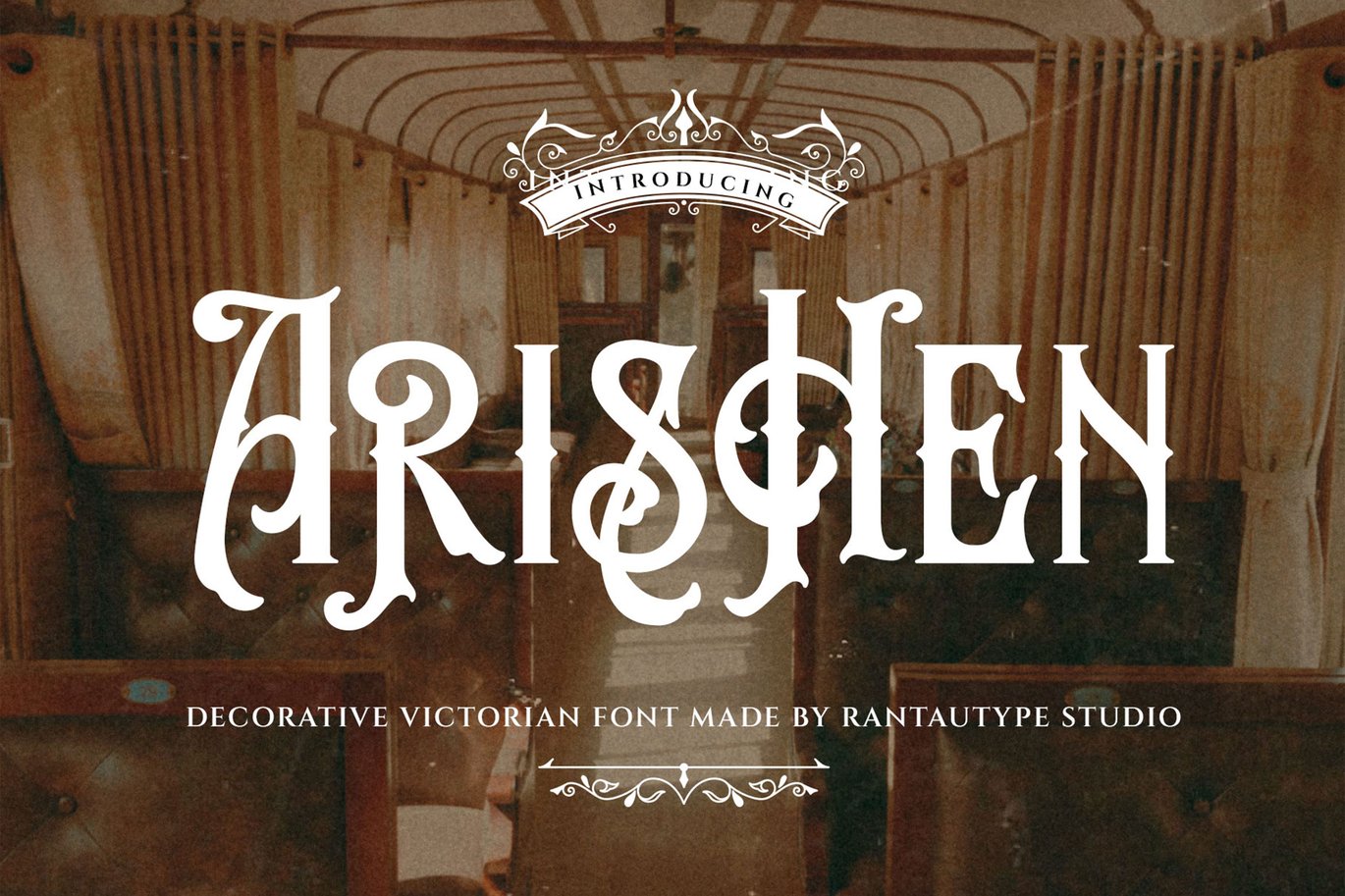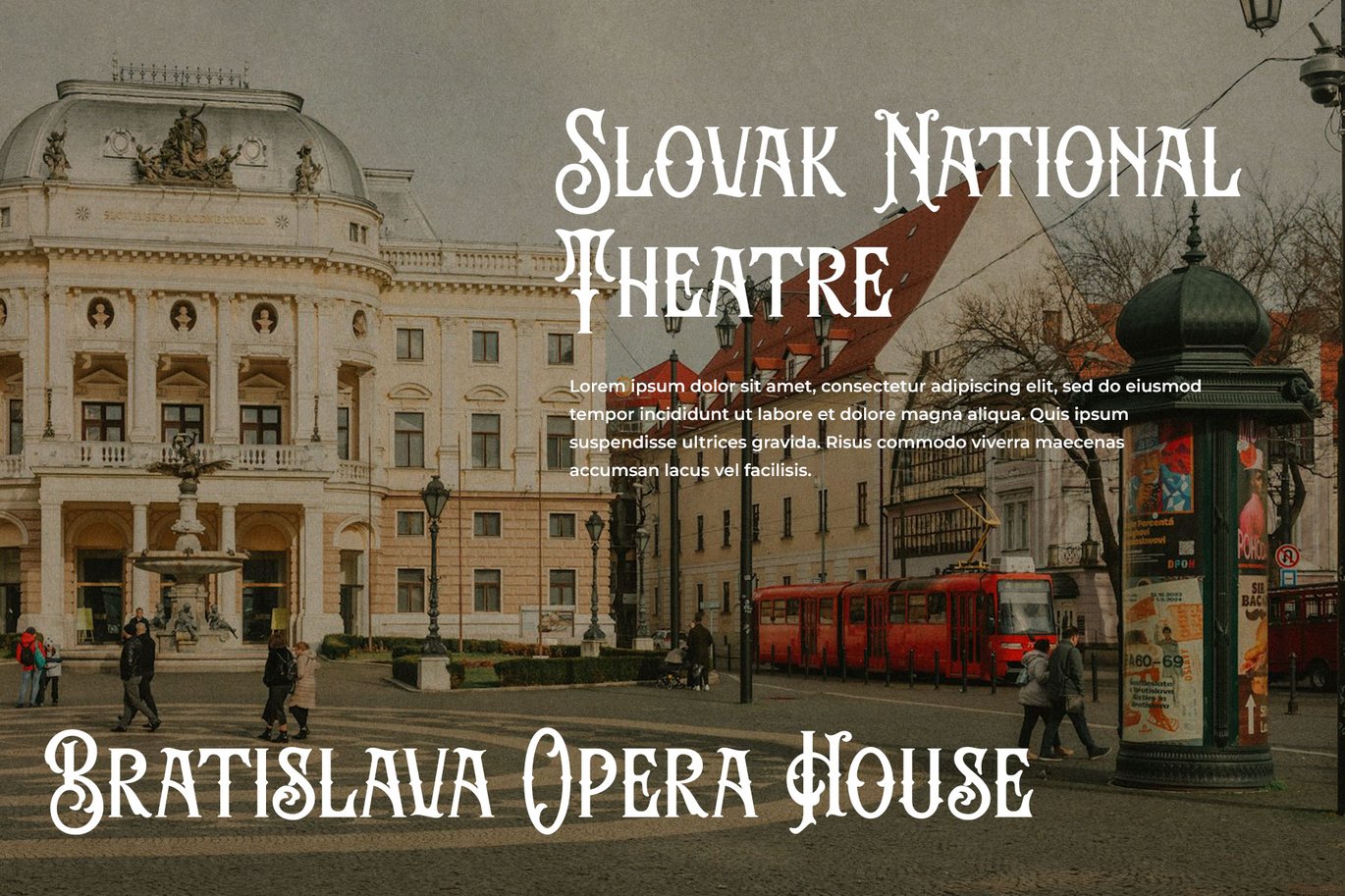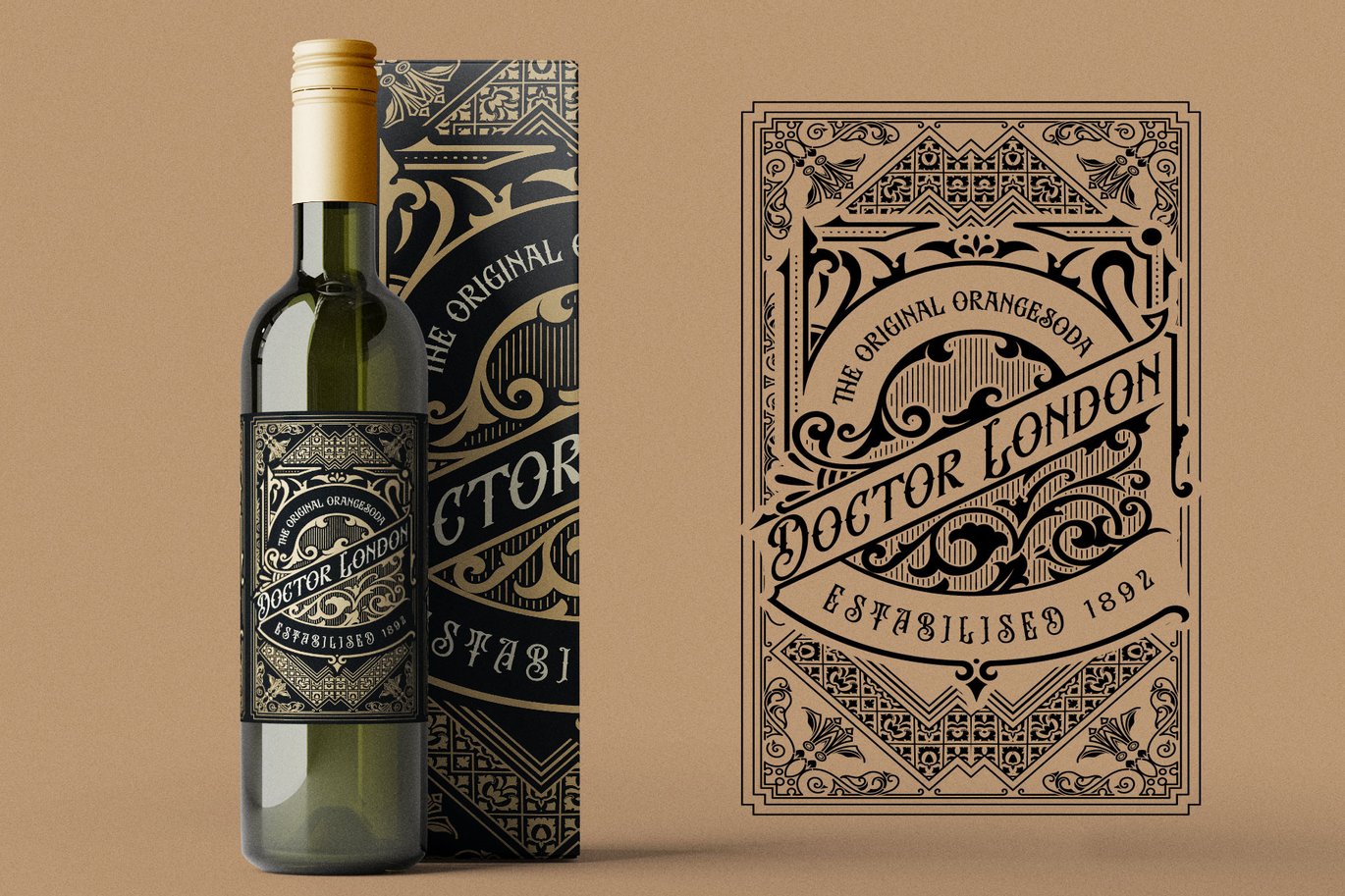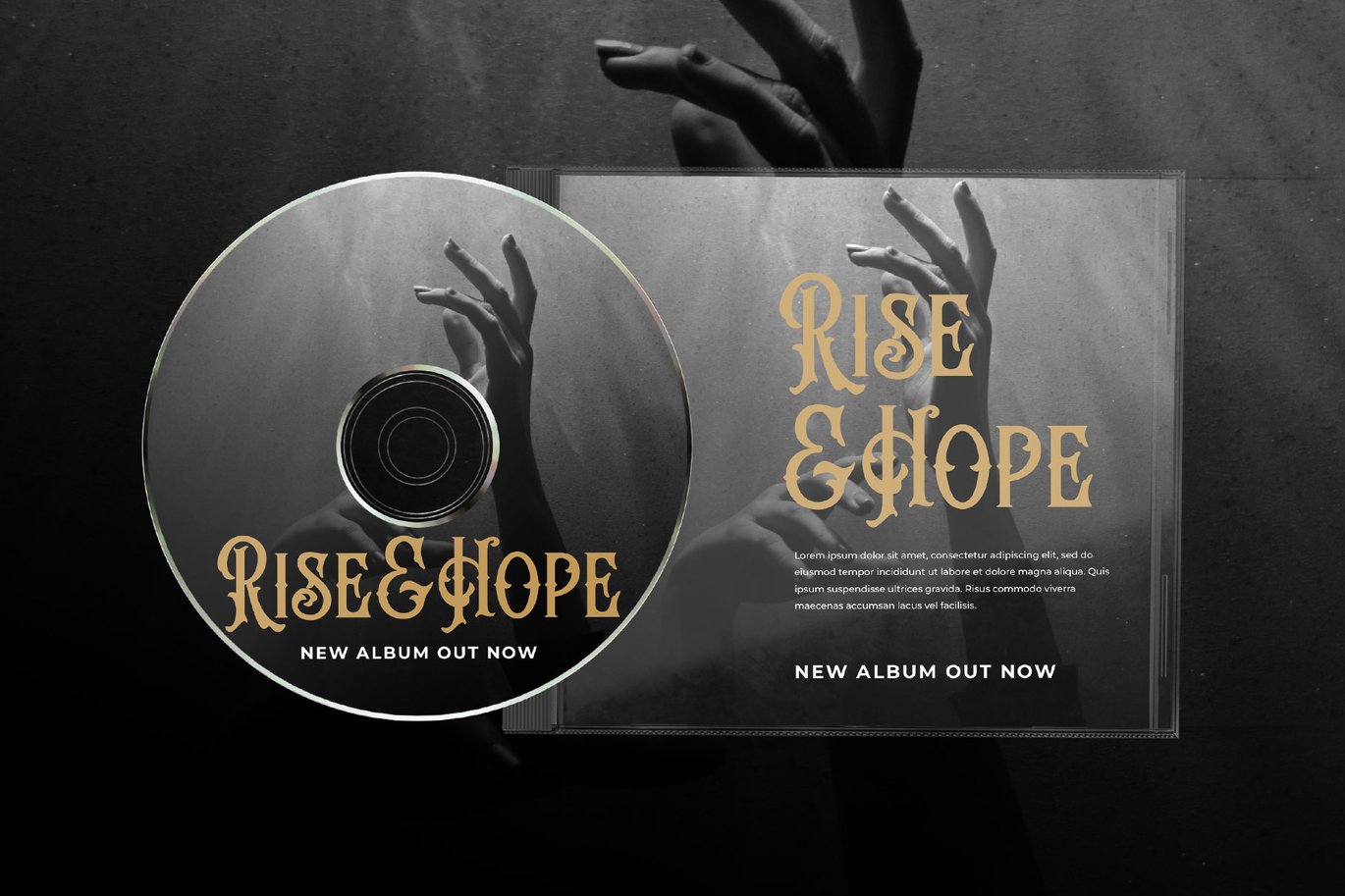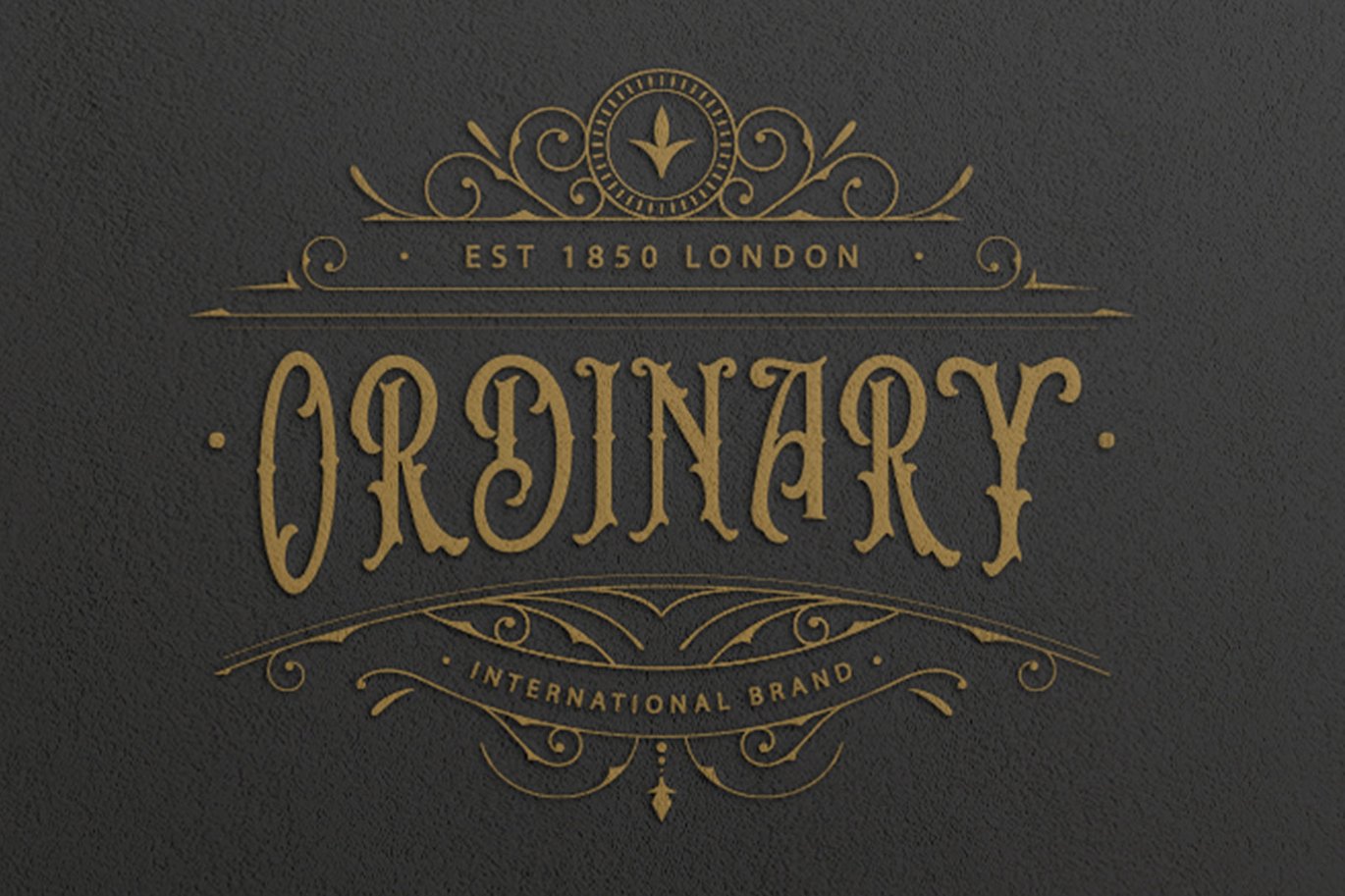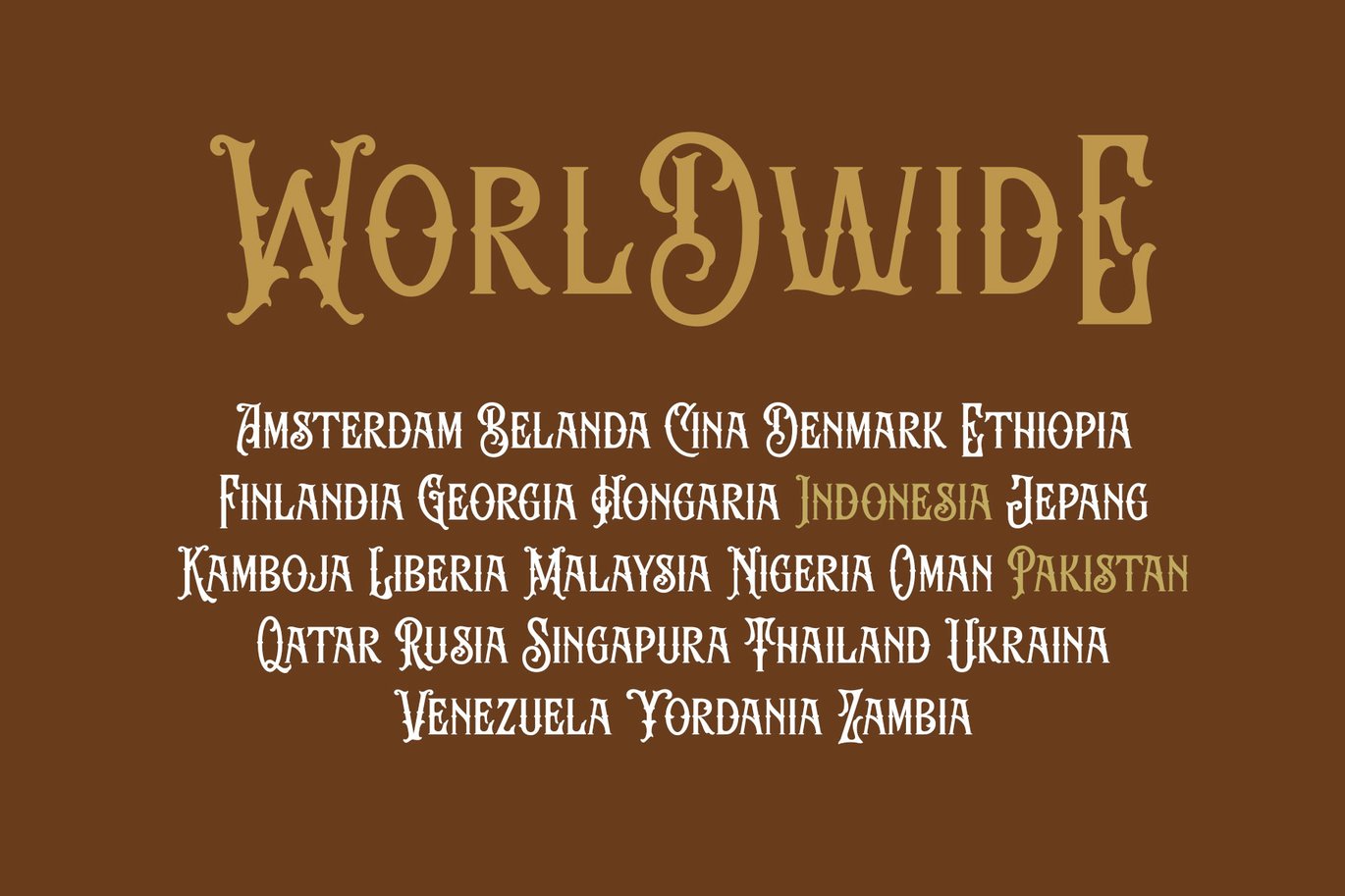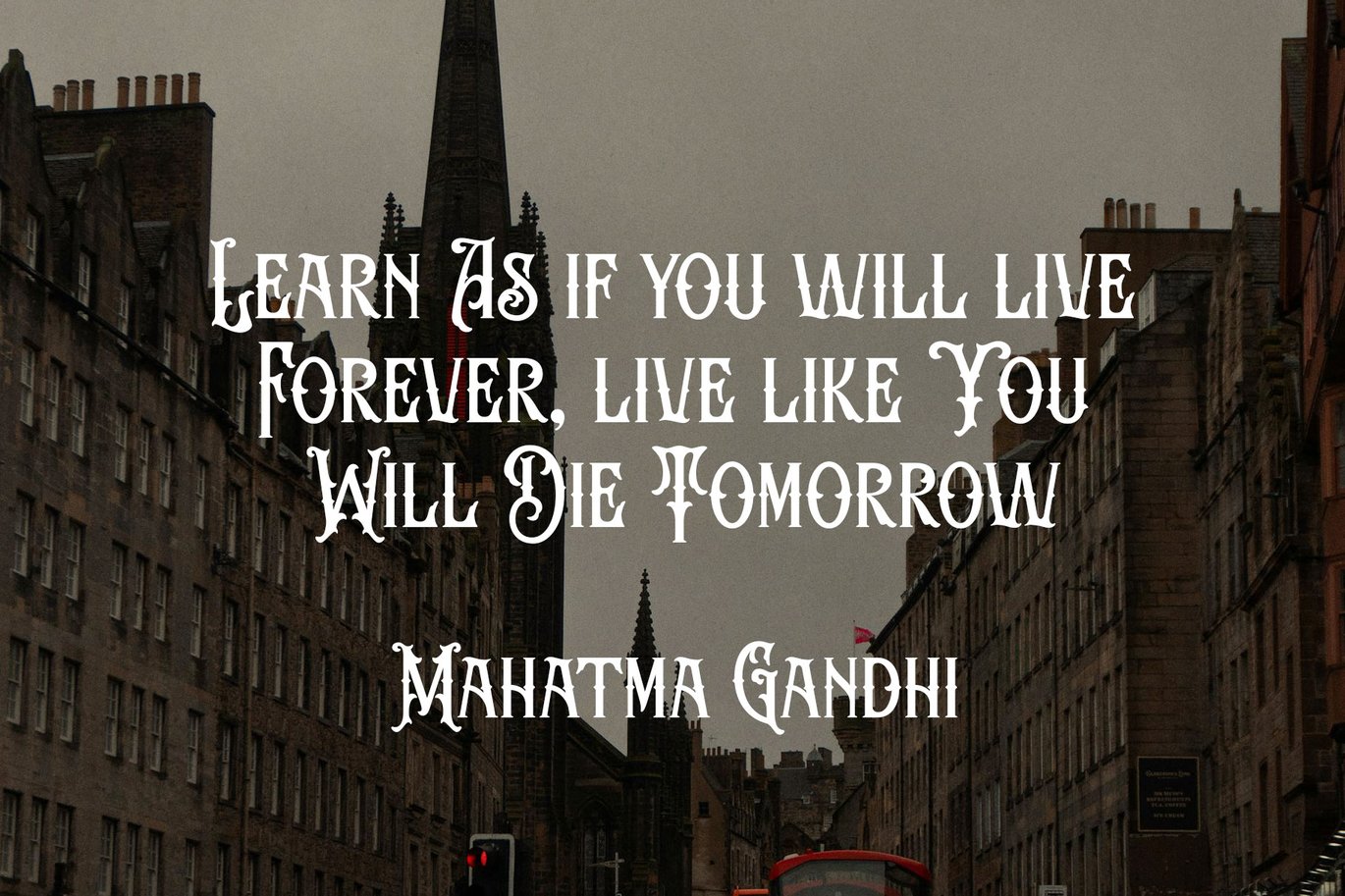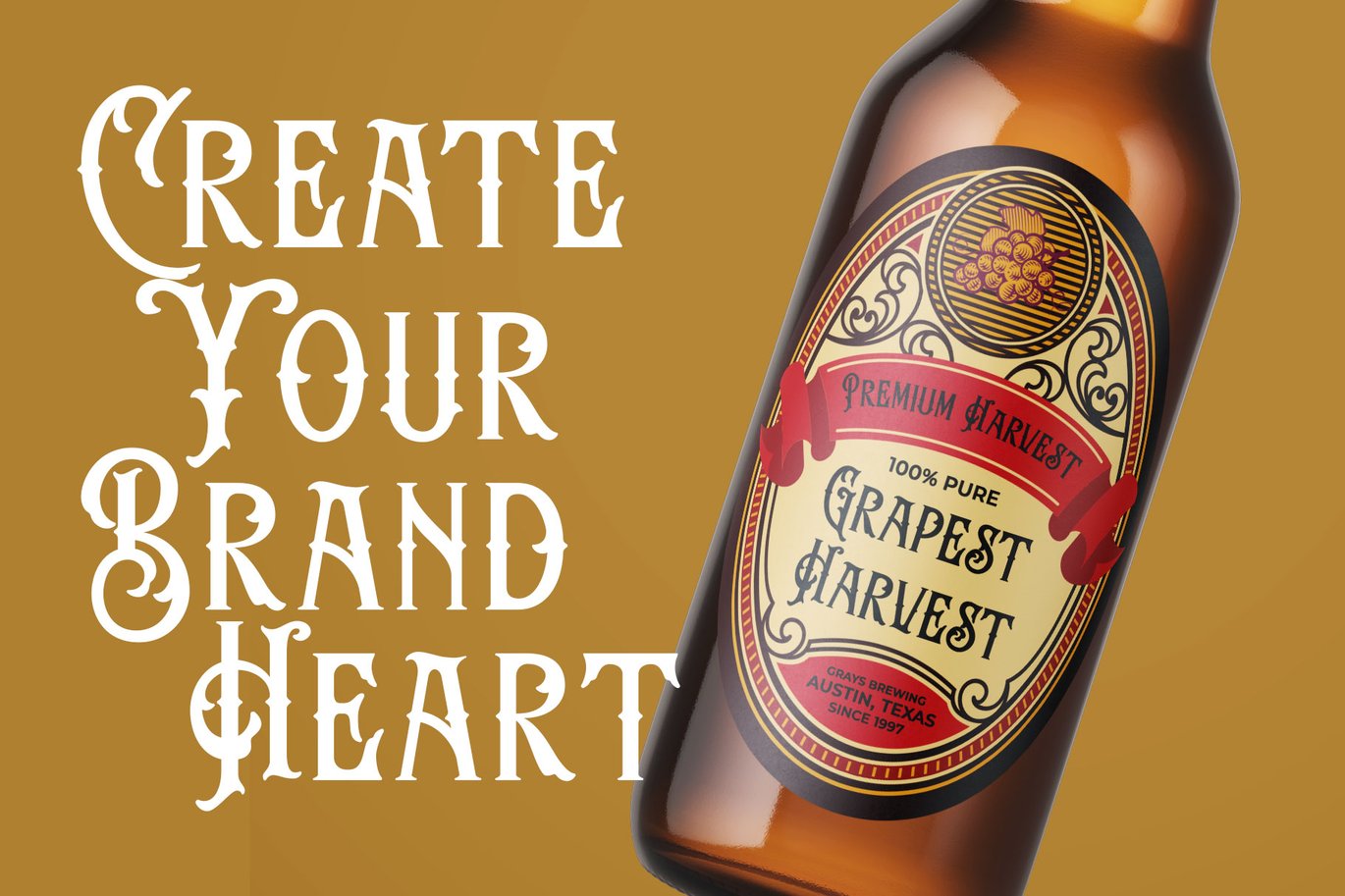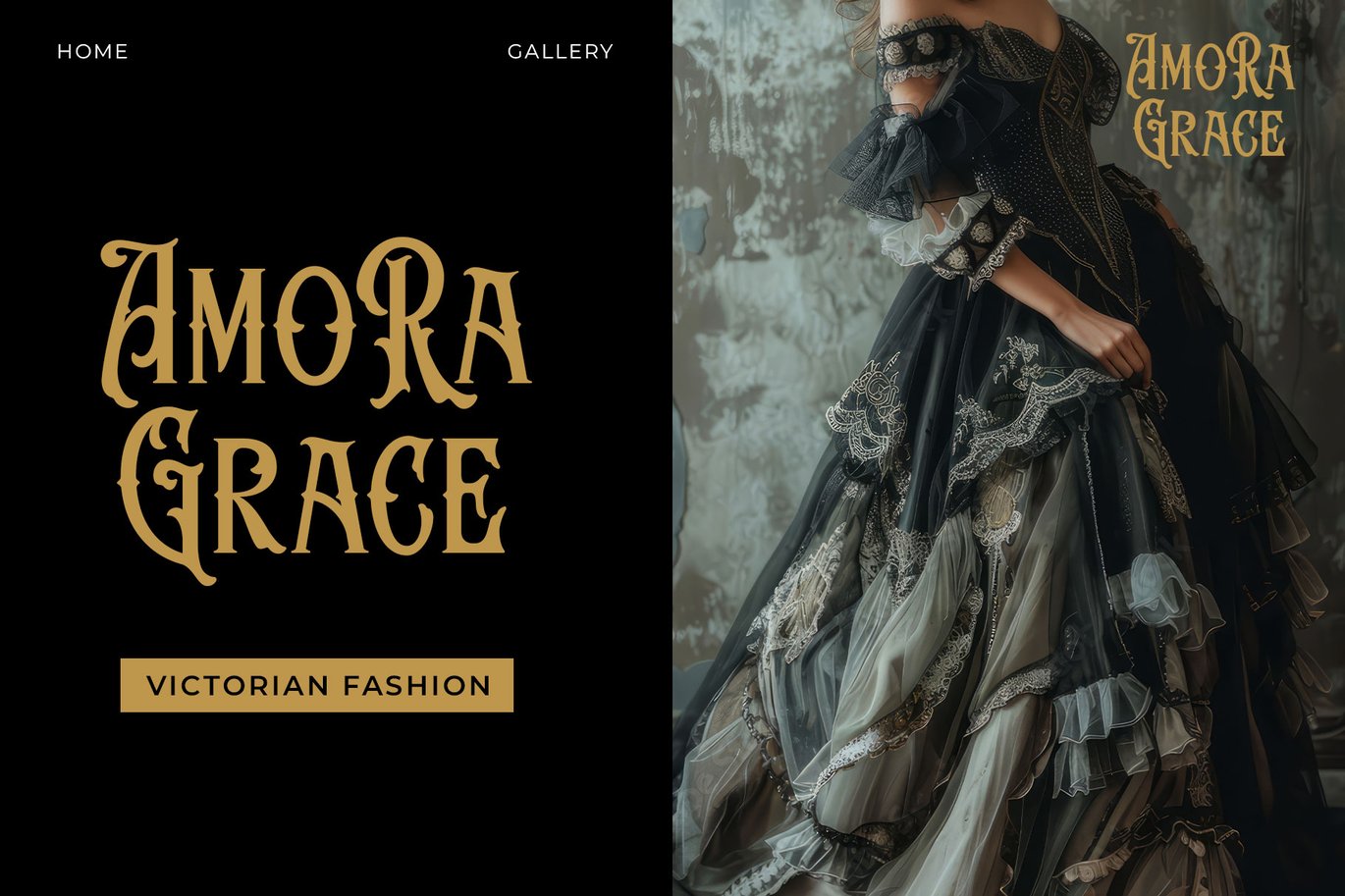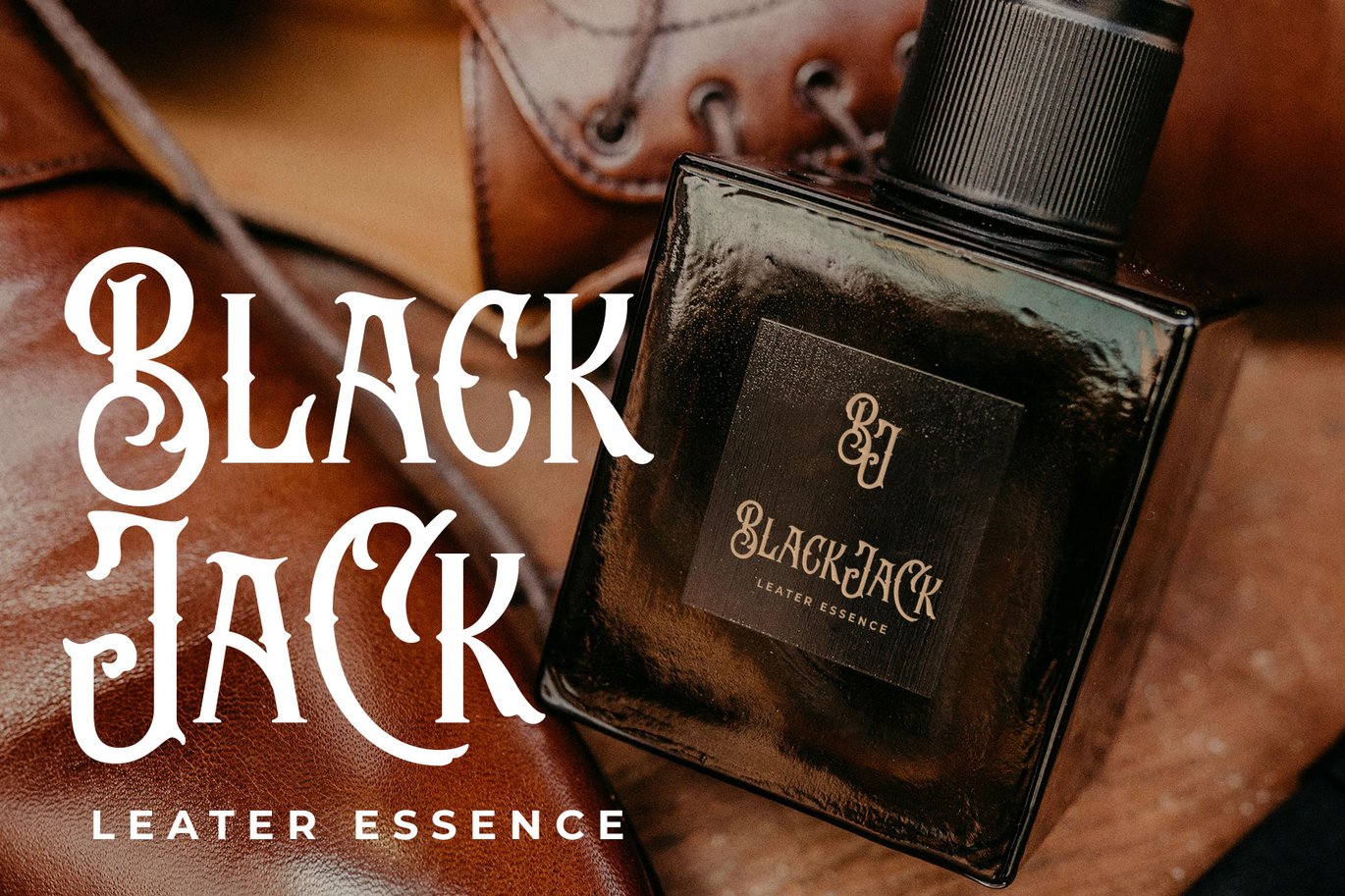
Arishen Decorative Victorian Font
Arishen is decorative font inspired from typography of victorian style. Arishen bring masterful blend of boldness and classic make your design project vintage look. Arishen come with alternate, you can mix and match to make creative design.